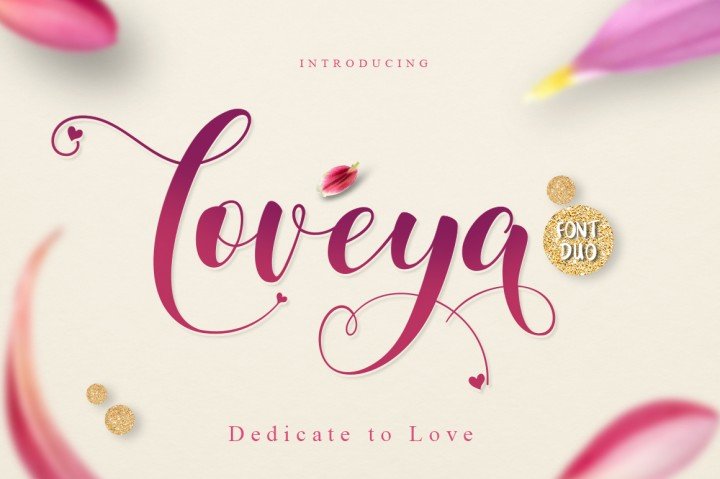
Loveya Script Font
Introducing Loveya Script Font! Loveya designed by Khurasan, this is a premium font, are sold on Thehungryjpeg, but it was great, it is free today for download. Loveya Script is a beautiful handmade script font, modern calligraphy & fresh typeface. Loveya Script suitable for logo, branding, invitation, greeting card, signature, poster and any design that you create.